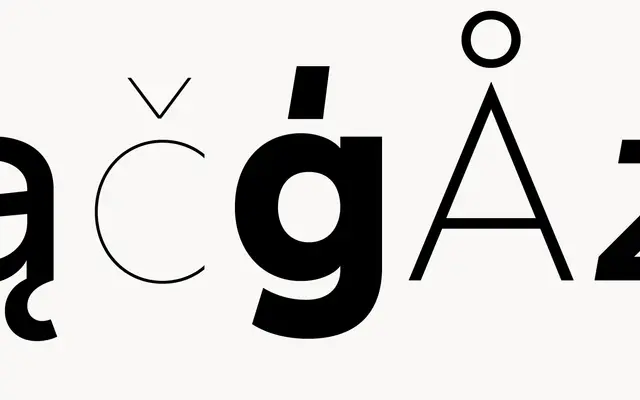
Gottak
atipo foundry · Raul Garcia del Pomar, Ismael Gonzalez · 2018
Gottak specimen from atipo foundry
A humanist sans by atipo across six weights with italics, with unusually broad Latin language coverage spanning indigenous and regional scripts.
A humanist sans by Raul Garcia del Pomar and Ismael Gonzalez at atipo foundry, with six weights from Thin to Bold and matching italics. Gottak carries stylistic alternates, fractions, superiors and ordinals and an unusually broad Latin language set covering European, indigenous and constructed languages including Quechua, Hawaiian, Maori, Cherokee, Navajo and many others. Useful where humanist warmth and serious language coverage have to coexist.
A humanist sans with calligraphic underpinnings, slight stroke modulation and open apertures. Six weights with matching italics support both display and text use across an unusually broad set of Latin-script languages including indigenous, regional and constructed languages.